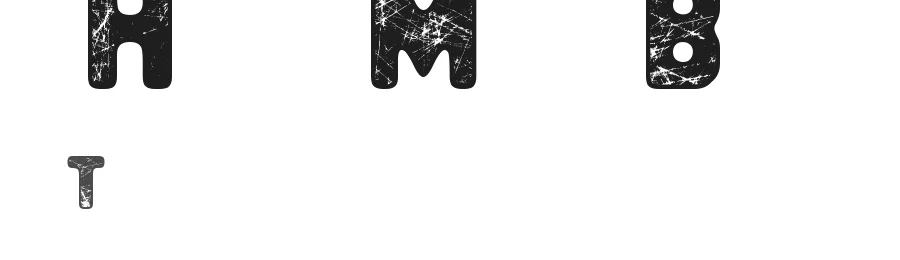
About LunaObscura Font
LunaObscura is a display font designed by Headspace Agency. It includes 383 glyphs, a regular weight, OTF (CFF) format, and 114 languages. LunaObscura is free to download; check the license details on this page before commercial use. Display fonts like LunaObscura work best for logos, posters, headlines, and eye-catching social media graphics.
| Designer | Headspace Agency |
LunaObscura ships with 2 OpenType features you can switch on in apps that support them (Illustrator, InDesign, Affinity, Figma, CSS font-feature-settings).
LunaObscura supports 114 languages.
LunaObscura Font is a display font that shines as a display or heading face. Pair it with a clean sans-serif or serif font for body text โ the contrast creates a clear hierarchy while the two styles stay balanced and easy to read.
LunaObscura Font
LunaObscura Font is a display typeface by Headspace Agency, ideal for logos, invitations, branding, and creative projects.